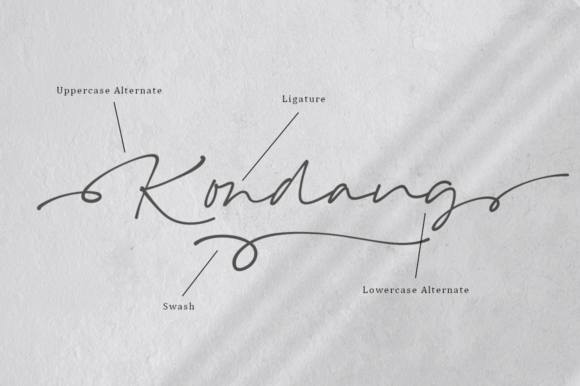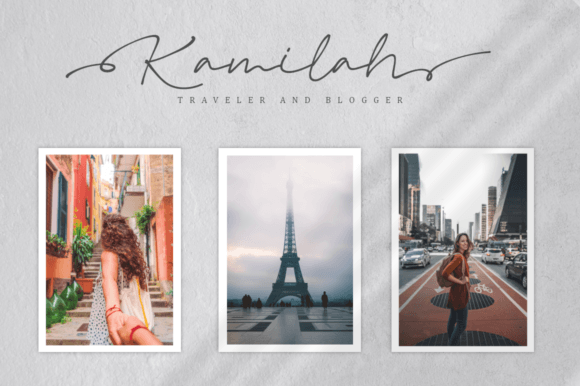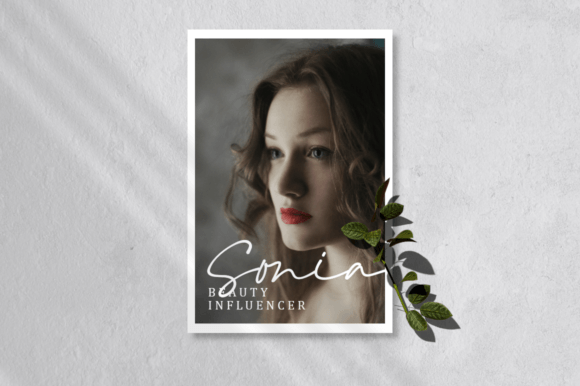
Introduction to Omesse Font
Omesse is an enchanting handwritten font.
This versatile script font has a wide spectrum of applications ranging from greeting cards to headlines and is guaranteed to add a romantic feel to your next project .
Key Features of Omesse Font
Why Choose Omesse Font?
Omesse Font offers exceptional quality and versatility, making it a valuable addition to your design toolkit. Whether you’re creating for personal projects or commercial use, Omesse Font delivers professional results.